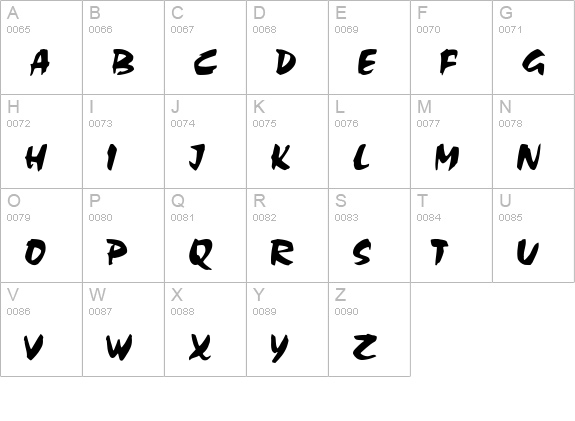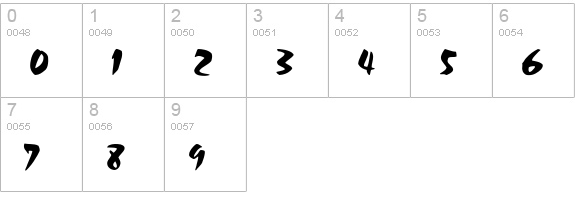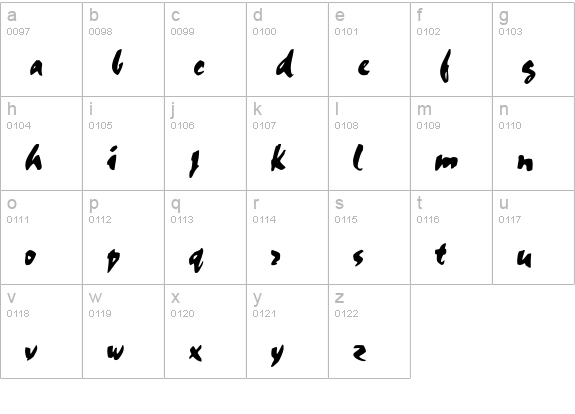
CSD-Chalk-Normal Font Details
CSD-Chalk-Normal is the standard, neutral variant in the CSD typeface family \xE2\x80\x94 well suited to general body text, paragraphs, and standard typographic work.
CSD-Chalk-Normal font is a charming and versatile typeface that exudes a sense of creativity and nostalgia. With its hand-drawn appearance and whimsical charm, this font is perfect for a variety of design projects, from posters to branding to social media graphics. The clean lines and slightly uneven edges give CSD-Chalk-Normal font a unique and authentic feel that will make your designs stand out. Best of all, CSD-Chalk-Normal font is completely free to download at FontsMarket.com. Whether you're a seasoned designer looking to add a touch of whimsy to your work or a beginner experimenting with different fonts, CSD-Chalk-Normal font is a fantastic choice. Don't miss out on this opportunity to enhance your designs with this delightful and free font. Download it today and let your creativity shine!